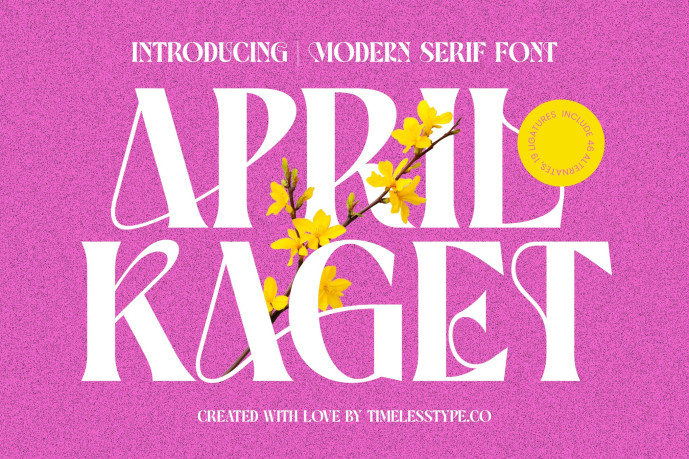
Appril Kaget Font is a modern serif display font that blends elegance with bold contemporary design. Featuring 19 ligatures and 46 alternates, it offers a refined structure with creative curves and high contrast details. Perfect for branding, packaging, editorials, and logo design, Appril Kaget delivers sophistication and visual impact — ideal for projects that seek a balance between modern and style.